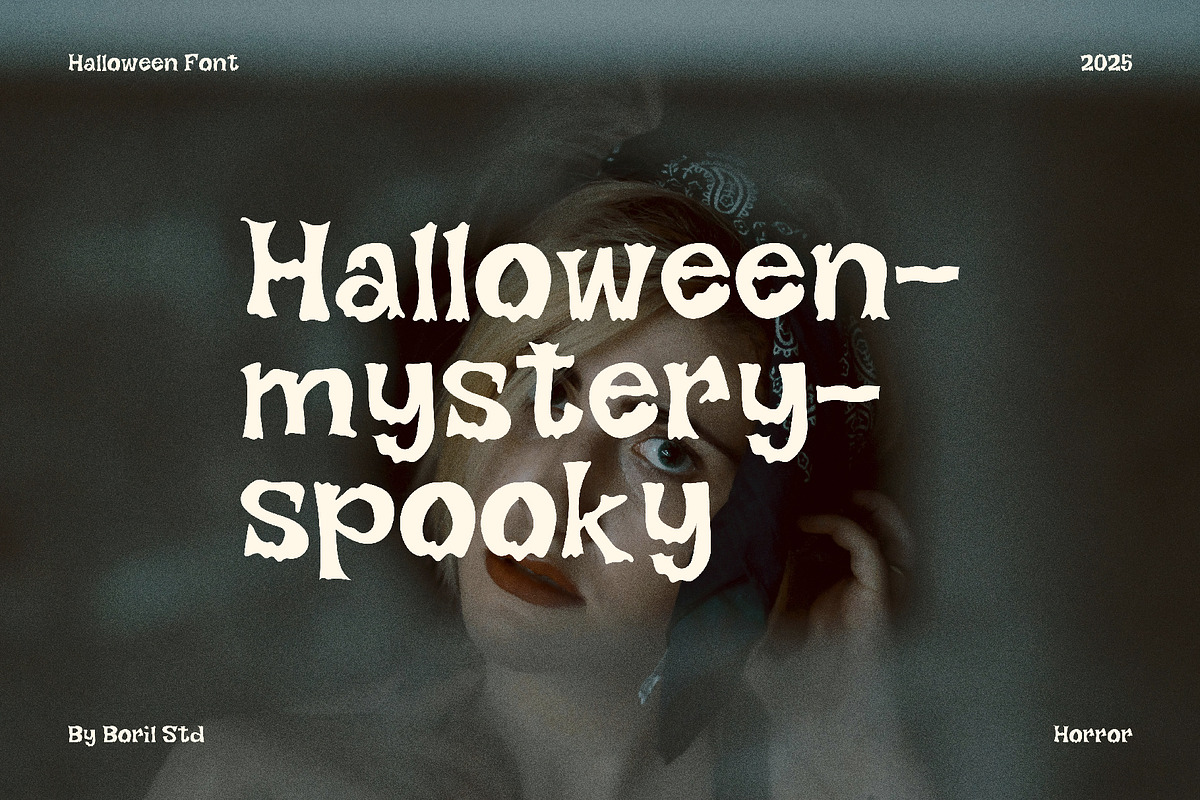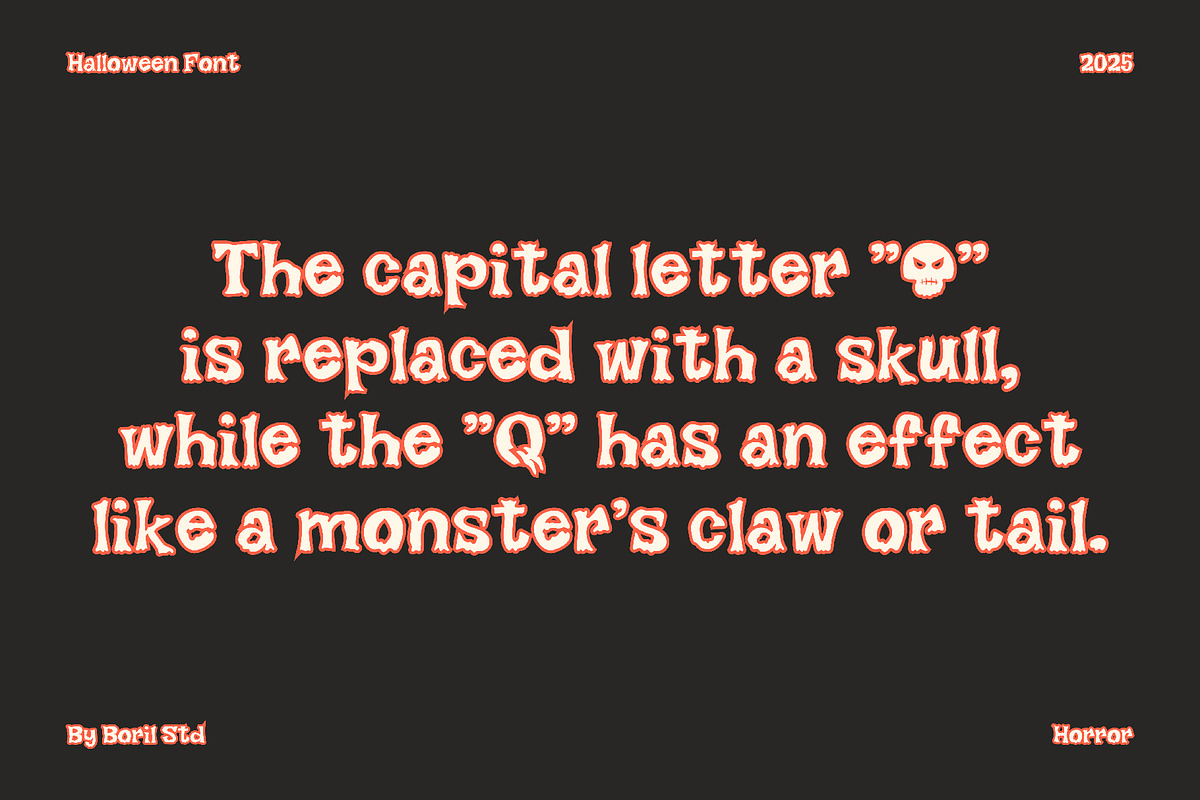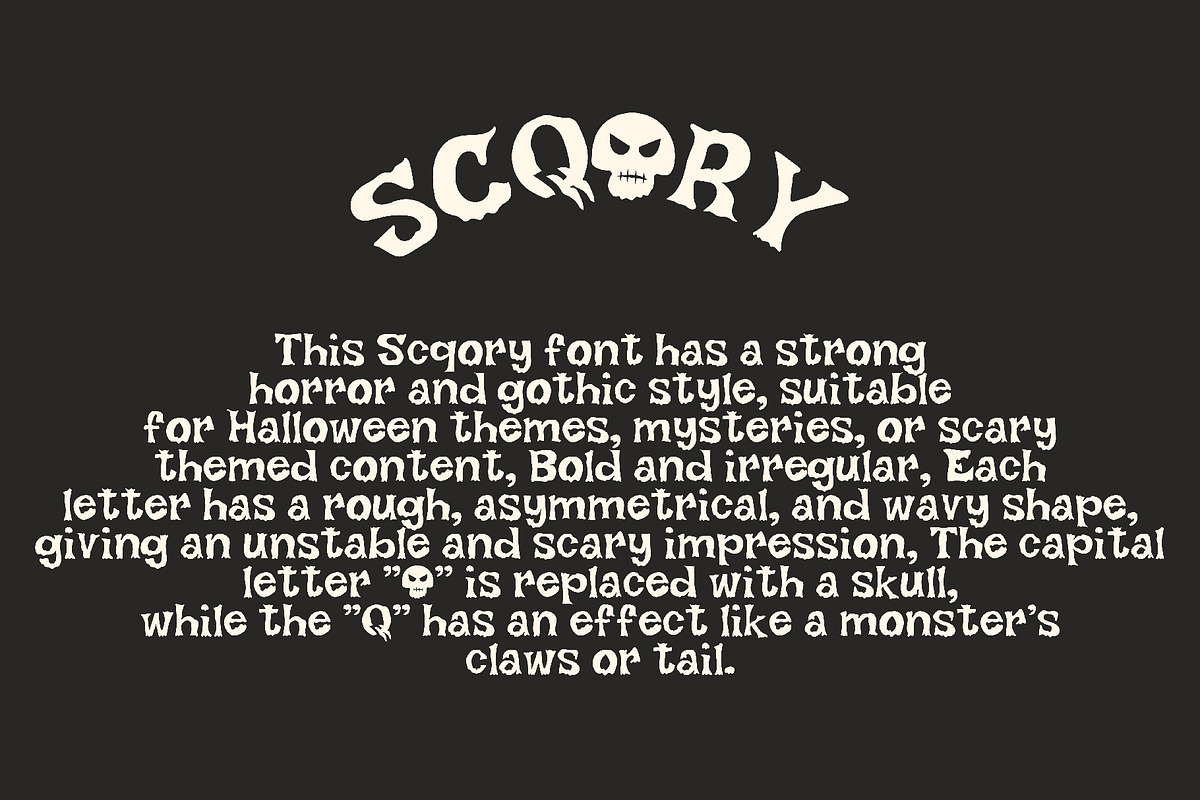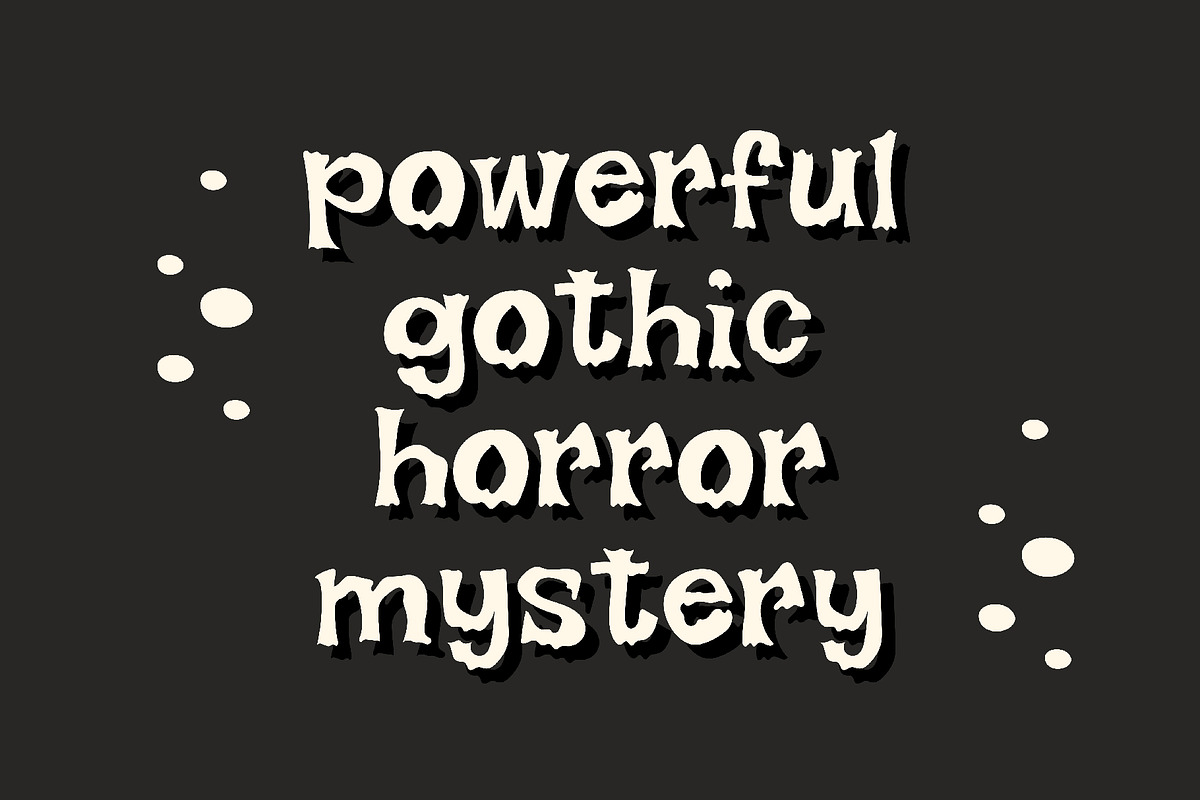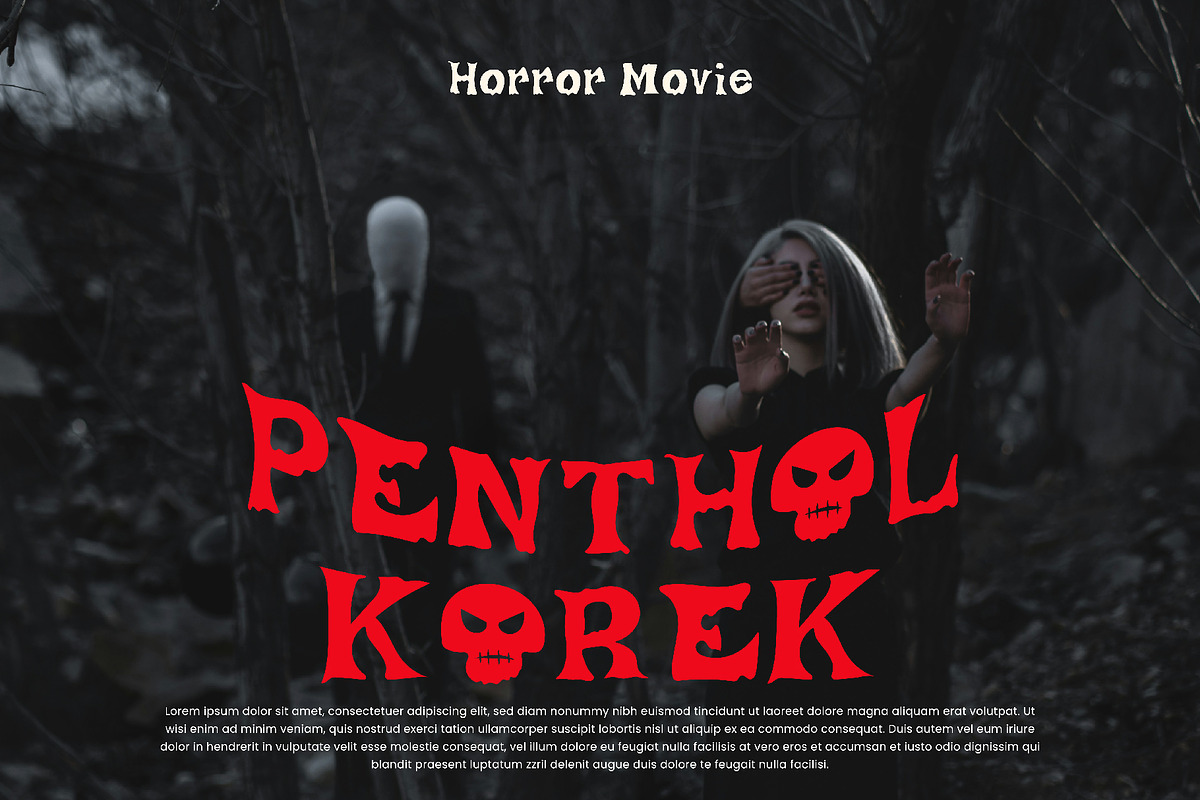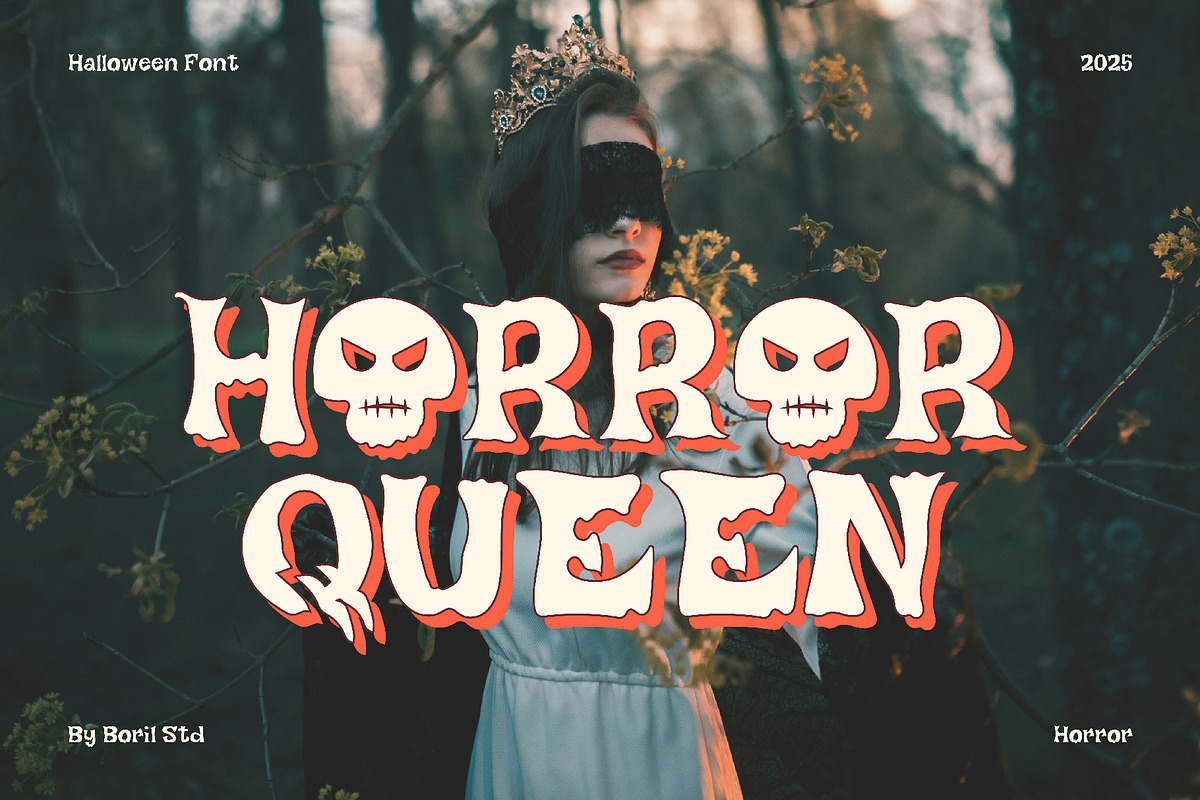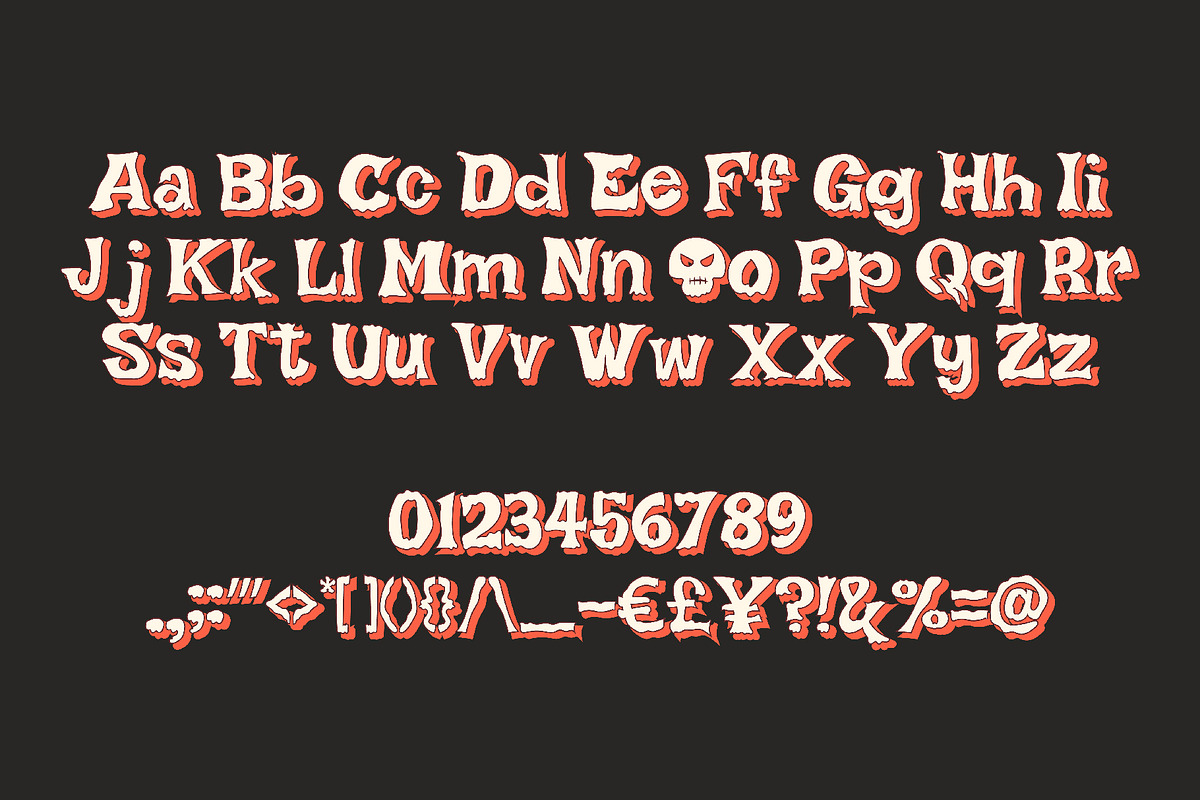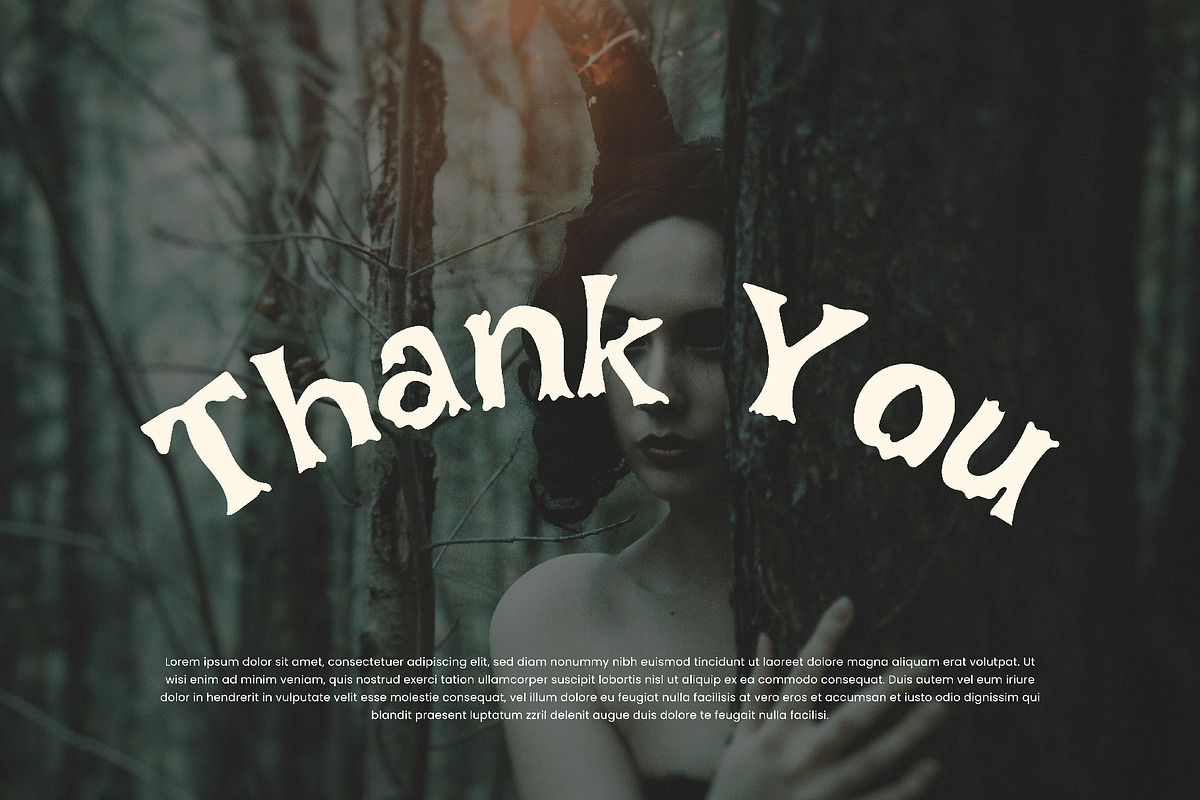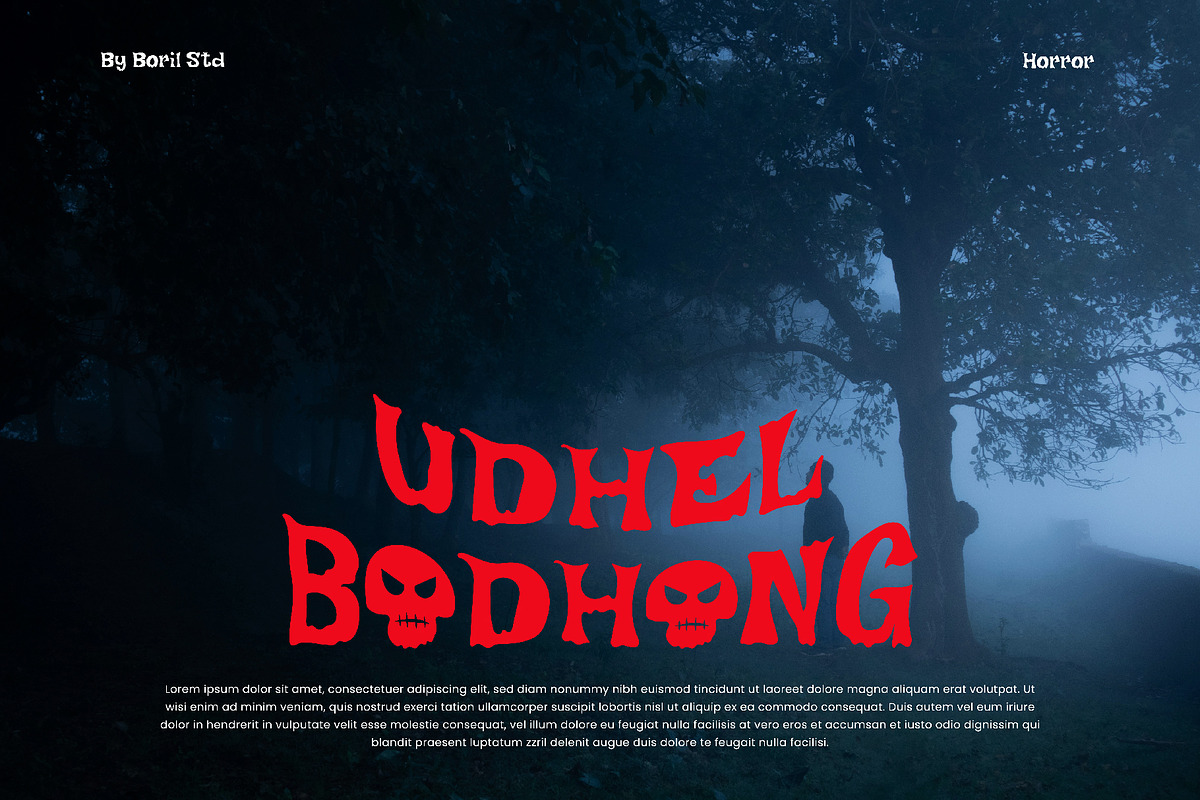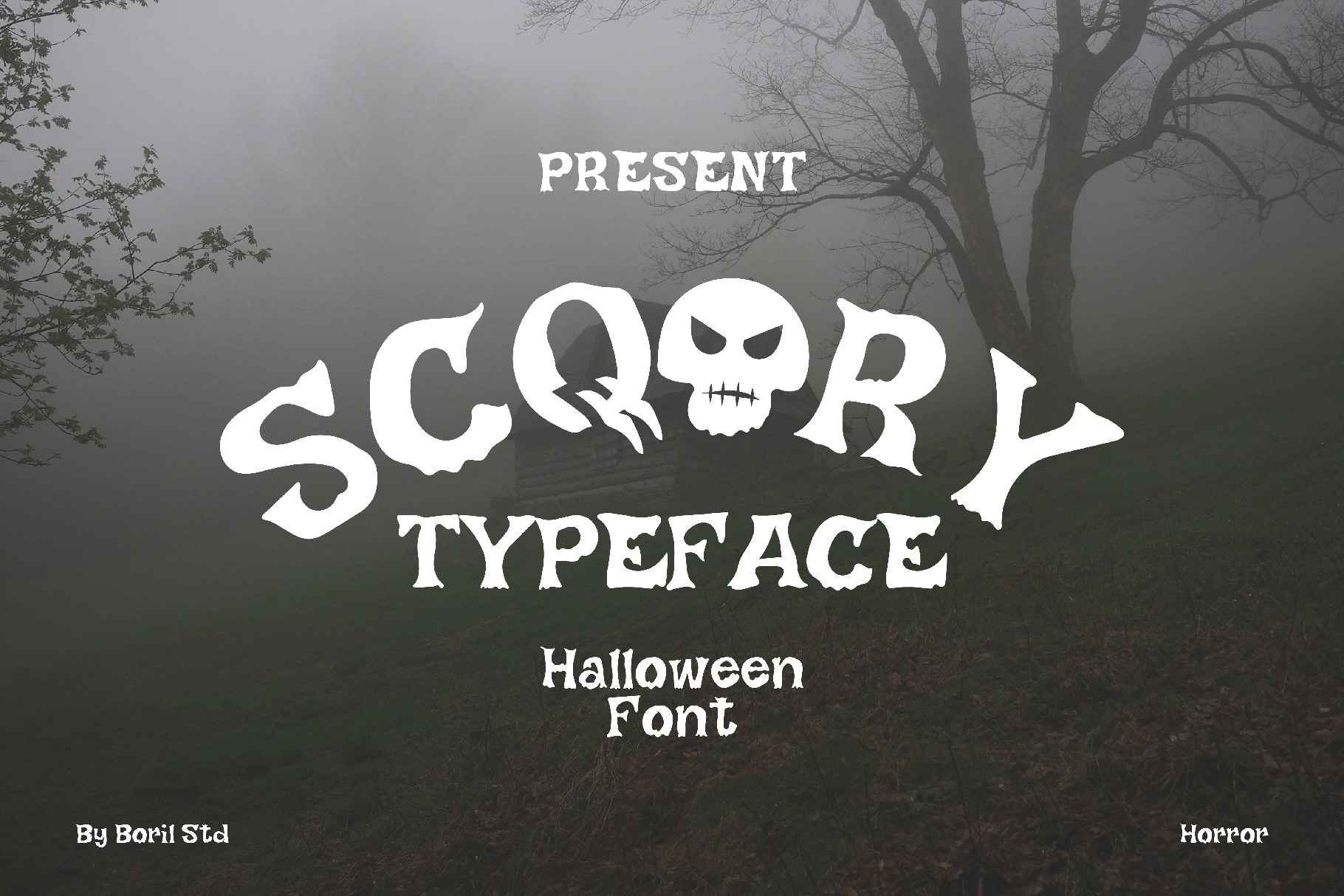
SCQORY - Halloween Horror Typeface
This Scqory font has a strong horror and gothic style, suitable for Halloween themes, mysteries, or scary themed content, Bold and irregular, Each letter has a rough, asymmetrical, and wavy shape, giving an unstable and scary impression, The capital letter "O" is replaced with a skull, while the "Q" has an effect like a monster's claws or tail.